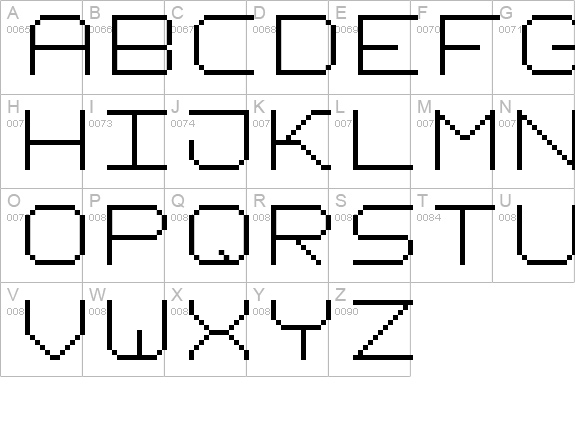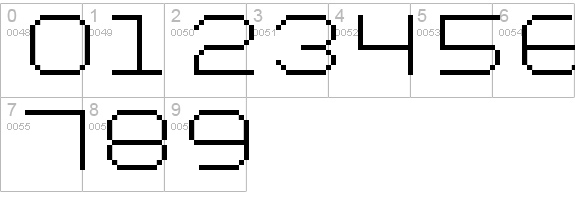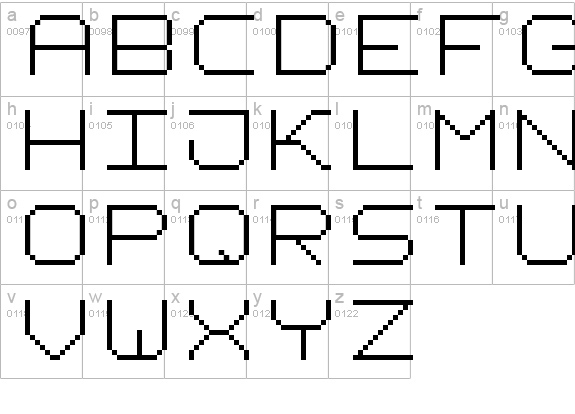
fixed_v02 font is a versatile and modern typeface that exudes elegance and sophistication. With its clean lines and balanced proportions, this font is perfect for a wide range of design projects. Whether you're working on a professional presentation or a creative branding campaign, fixed_v02 will add a touch of refinement to your work. What's even better is that fixed_v02 is available for free download at FontsMarket.com. This means you can easily access this high-quality font without breaking the bank. Don't miss out on the opportunity to enhance your designs with the timeless appeal of fixed_v02. Download it today and elevate your creative projects to new heights!